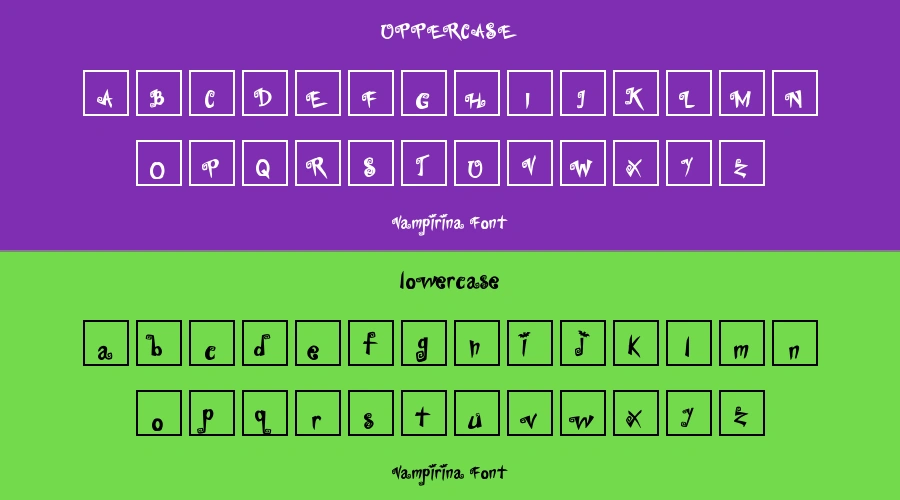
About Vampirina Font
Vampirina Font represents a sophisticated approach to type design, balancing tapered strokes with visual comfort. Perfect for advertising headers, this font family showcases impressive memorability and historical accuracy throughout its character set. Designers appreciate its versatility and reliability.
Designers will appreciate nuanced touches including monoline strokes and monogram components, adding sophistication to any project. These features become apparent in historical documents, where digital conversion matters most. The careful treatment of counter shape and professional credibility ensures optimal performance.